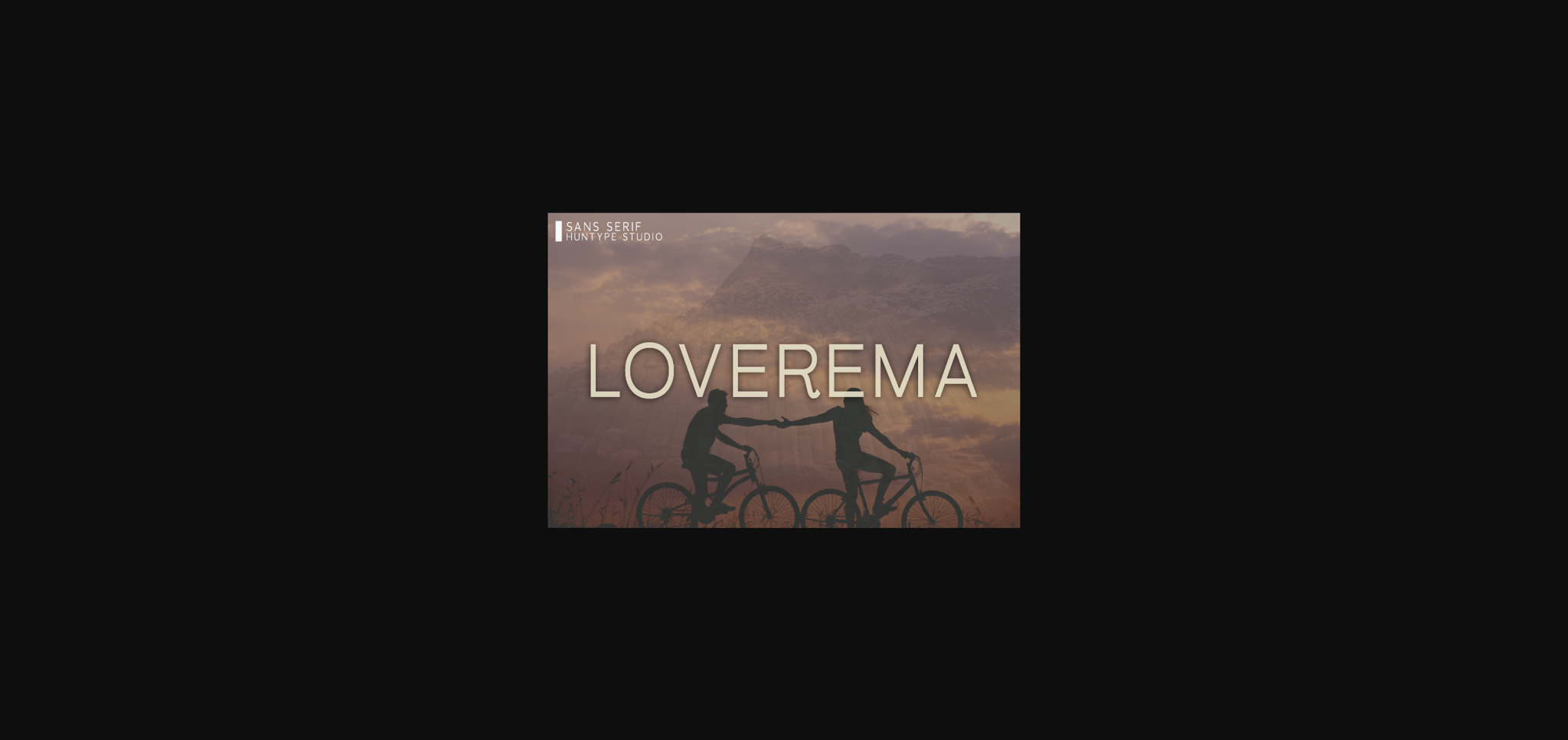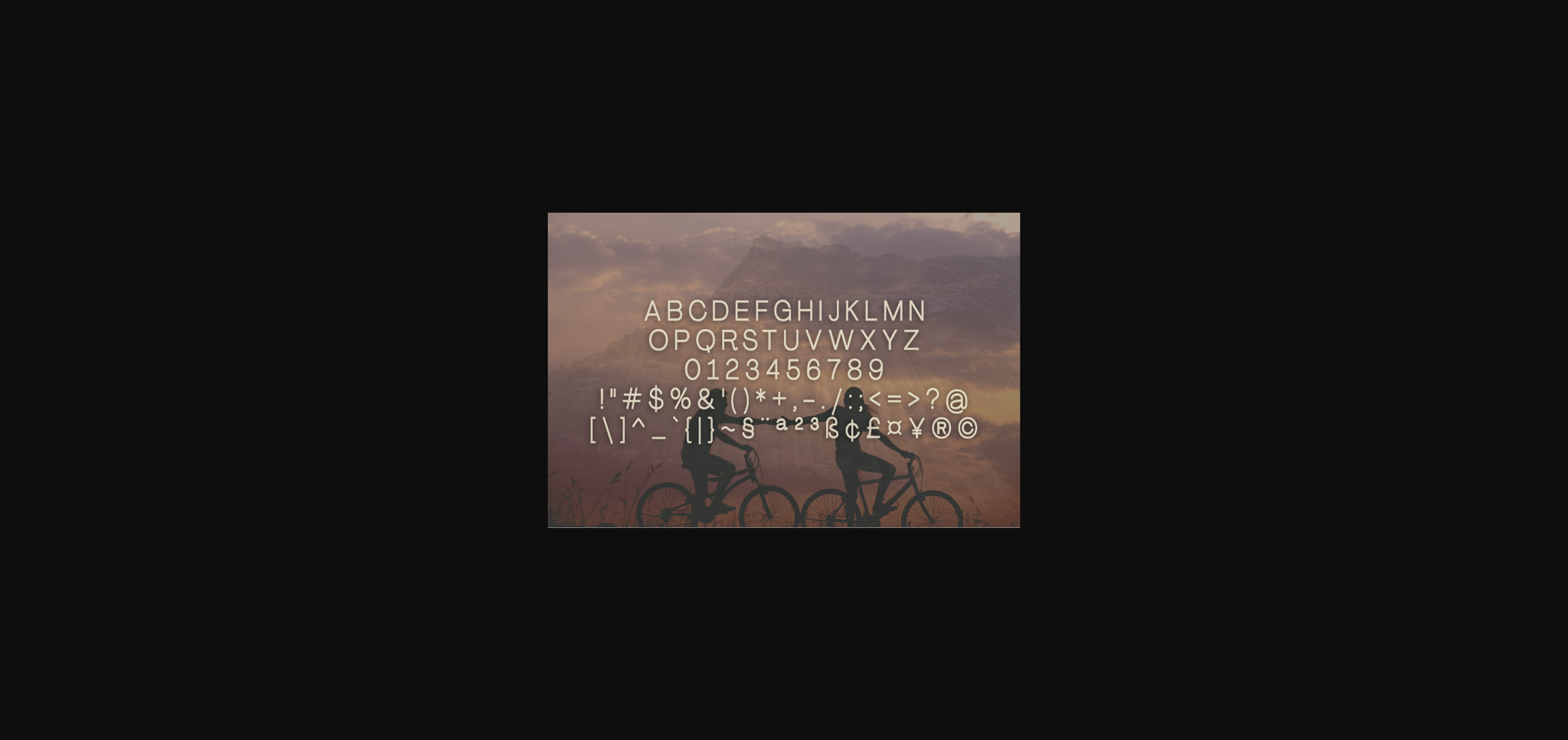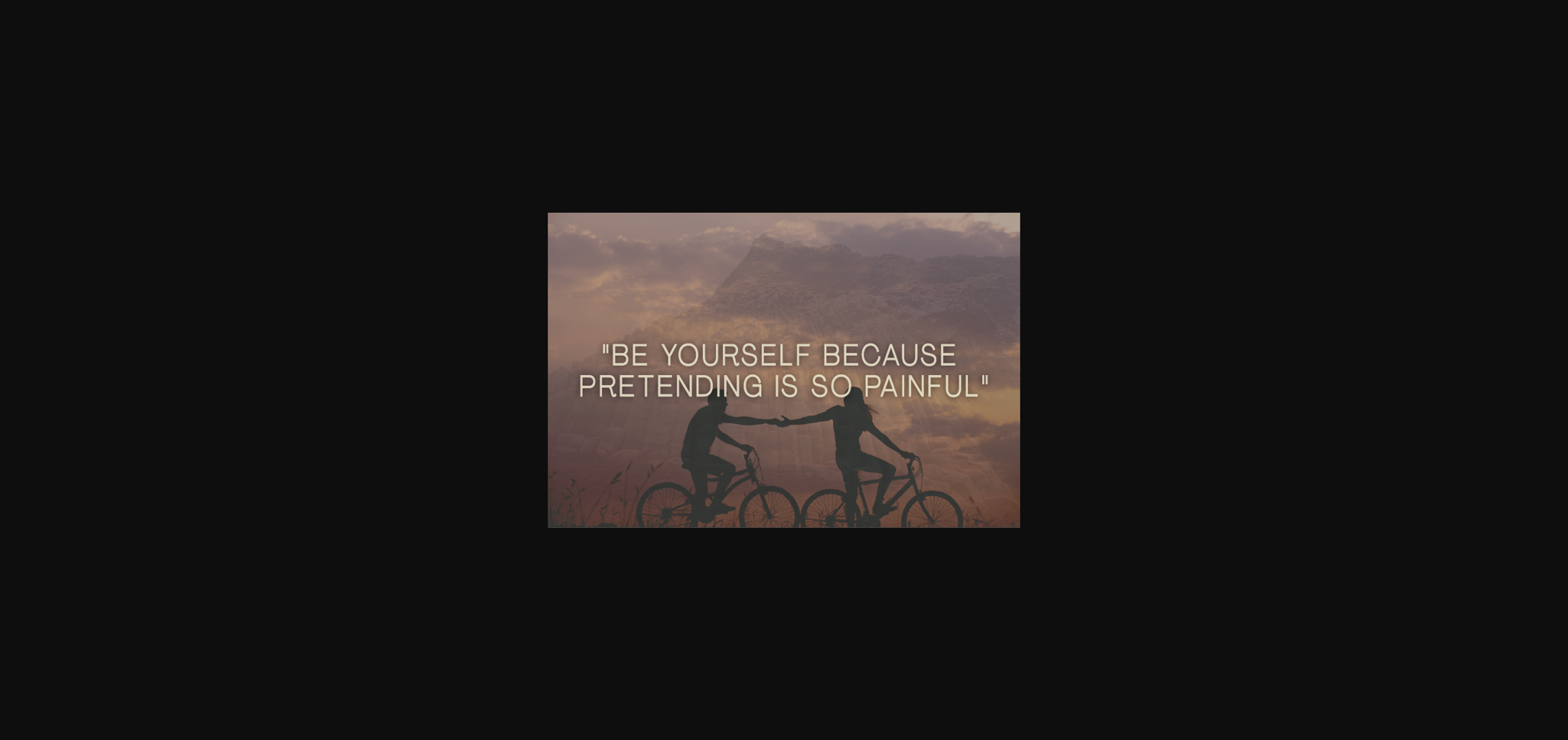
About Loverema Font
Loverema is a casual and clean sans serif font. It can be used for various purposes such as logos, headings, t-shirts, letterhead, signage, labels, news, posters, badges and so much more.